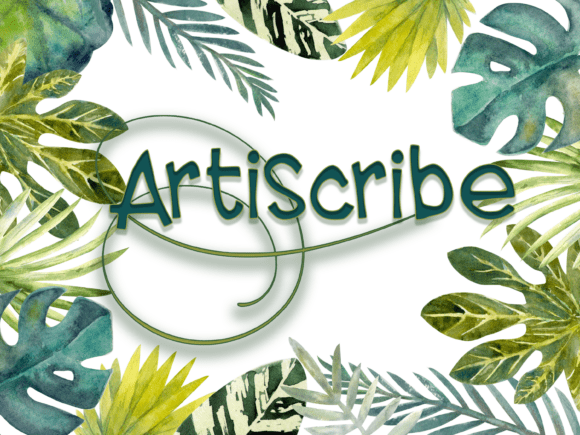
I still remember the frustration of working on a logo design project for a client who wanted something “unique” and “artistic.” As I scrolled through font libraries, I couldn’t help but feel overwhelmed by the countless options. That’s when I stumbled upon Artiscribe Font, a stylish and artistic typeface that instantly caught my attention. In this article, I’ll share my experience with Artiscribe Font, its features, and how to make the most of it in various design software.
First Impressions: What I Love About Artiscribe Font
Artiscribe Font is a game-changer for designers, crafters, and creative hobbyists looking for a fresh, artistic touch. Here are some of the things I love about this font:
- ✨ High-quality, professionally crafted glyphs that add a touch of elegance to any design
The Honest Review: A Few Quirks to Consider
While Artiscribe Font has won me over, there are a few quirks to consider:
- ⚠️ Some users may find the font too ornate or decorative for certain projects, so it’s essential to consider the design brief and target audience.
- Experiment with OpenType features, such as ligatures and stylistic alternates, to add visual interest to your design.
The Designer Inspiration Behind Artiscribe Font
Artiscribe Font was inspired by the world of art and creativity. Its designer, a passionate typographer, aimed to create a font that would add a touch of elegance and sophistication to any design. With its high-quality glyphs and versatile compatibility, Artiscribe Font is sure to become a favorite among designers and creative hobbyists.
| Does Artiscribe Font support OpenType features? | Yes, Artiscribe Font supports OpenType features, including ligatures, stylistic alternates, and glyphs. |
With Artiscribe Font, you can elevate your projects with a fresh, artistic touch. Whether you’re a designer, crafter, or creative hobbyist, this font is sure to inspire and enhance your designs.